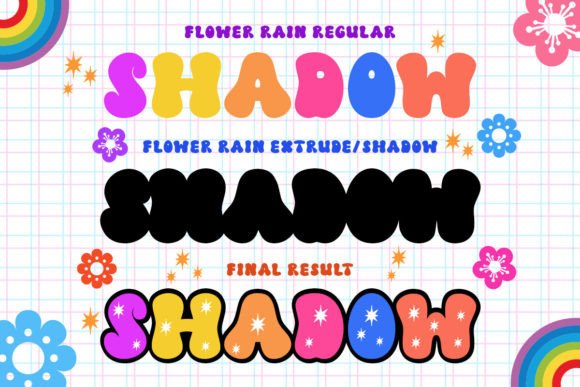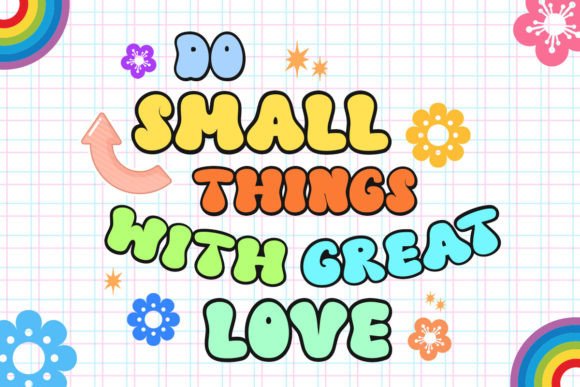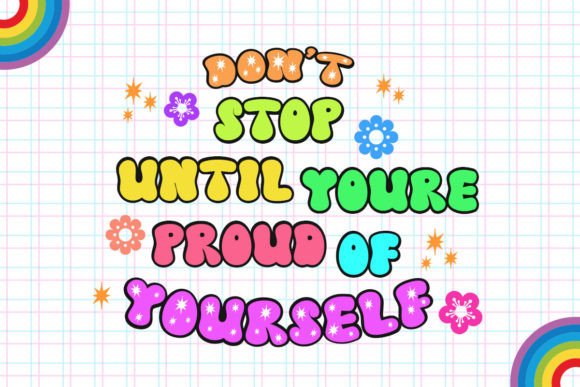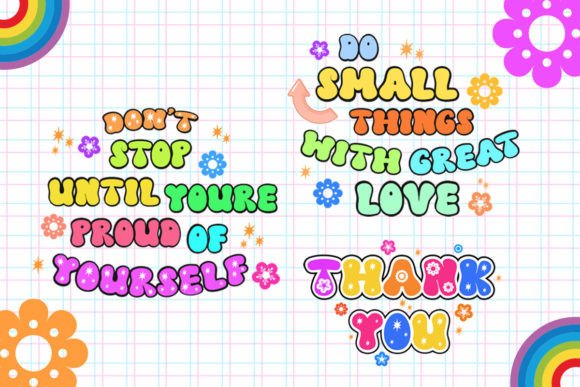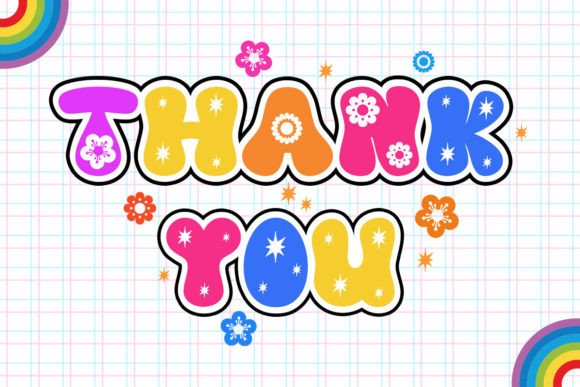
Introducing Flower Rain Font: The Ultimate Playful Accent for Your Designs
Are you looking for a font that adds a touch of playfulness and fun to your designs? Look no further than Flower Rain Font, a groovy and retro-inspired bold typography font that’s perfect for creative projects that require a dash of whimsy. In this article, we’ll dive into the features and benefits of Flower Rain Font, and explore how it can elevate your designs to new heights.
The Inspiration Behind Flower Rain Font
Flower Rain Font is inspired by the bold and playful typography of the retro era. Its unique design is masterfully crafted to bring a sense of fun and playfulness to your designs, making it perfect for projects that require a creative and eye-catching accent. Whether you’re a designer, crafter, or DIY enthusiast, Flower Rain Font is sure to become a true favorite in your collection.
Key Features of Flower Rain Font
- Playful and Fun Design: Flower Rain Font boasts a unique and playful design that’s sure to add a touch of whimsy to your projects.
- Retro-Inspired Bold Typography: This font is inspired by the bold and playful typography of the retro era, making it perfect for designs that require a vintage or nostalgic feel.
- Versatile and Adaptable: Flower Rain Font is suitable for a wide range of design projects, including book covers, posters, packaging, merchandise, logotype, and more.
Flower Rain Font is a versatile font that’s perfect for a wide range of design projects. Here are some ideas to get you started:
- Book Covers: Add a touch of playfulness to your book covers with Flower Rain Font, perfect for fiction, non-fiction, and children’s books.
- Posters and Flyers: Create eye-catching posters and flyers with Flower Rain Font, ideal for advertising, events, and promotions.
- Packaging Design: Add a creative touch to your packaging design with Flower Rain Font, perfect for product labels, tags, and branding.
- Merchandise: Create fun and playful merchandise with Flower Rain Font, including t-shirts, mugs, and tote bags.
- Logotype and Branding: Use Flower Rain Font to create a unique and memorable logotype and branding for your business or personal project.
Why Choose Flower Rain Font?
With so many fonts available, why choose Flower Rain Font? Here are just a few reasons why this font stands out:
- Unique and Playful Design: Flower Rain Font offers a unique and playful design that’s sure to add a touch of whimsy to your projects.
- High-Quality Design: This font is masterfully designed to ensure high-quality and crisp text, even at small sizes.
| Font Name | Flower Rain Font |
| Author | Letter Muray |
In conclusion, Flower Rain Font is a fun and groovy font that’s perfect for designers and crafters who want to add a touch of playfulness to their projects. With its unique and playful design, retro-inspired bold typography, and versatility, this font is sure to become a true favorite in your collection. Whether you’re working on a book cover, poster, packaging design, or merchandise, Flower Rain Font is the perfect choice for adding a creative and eye-catching accent.